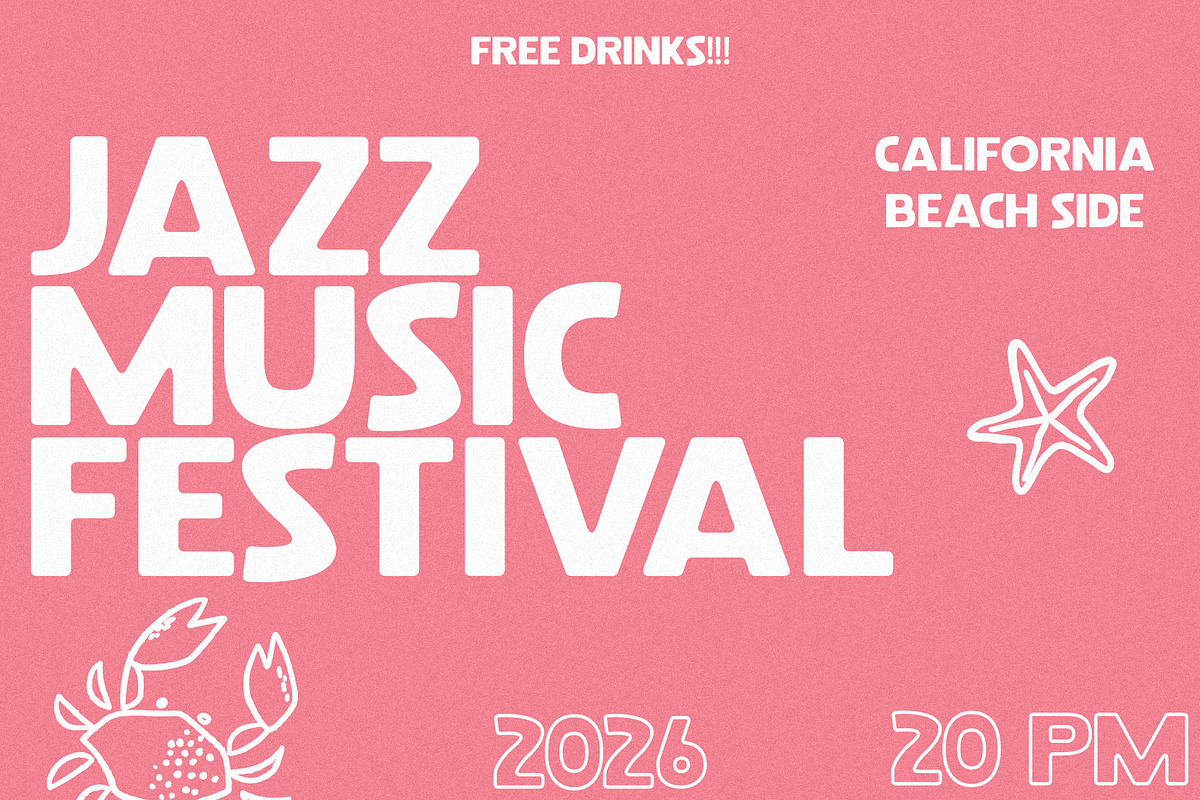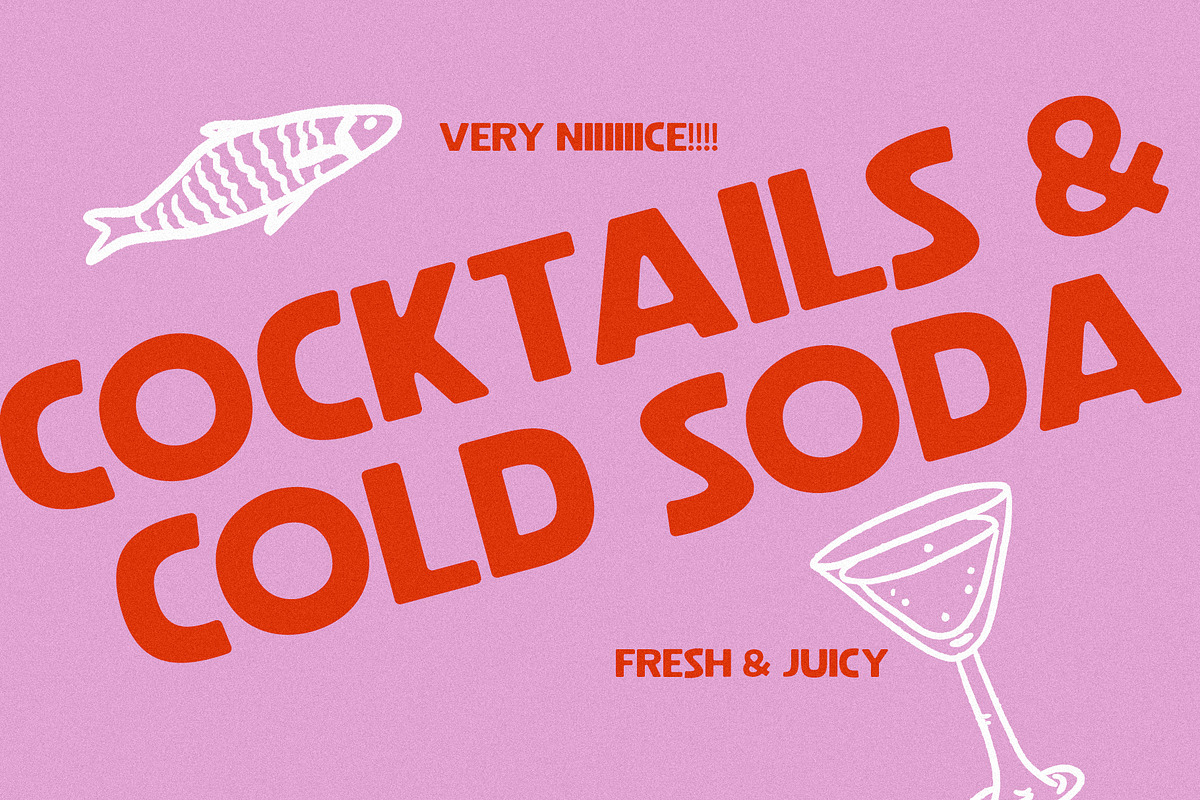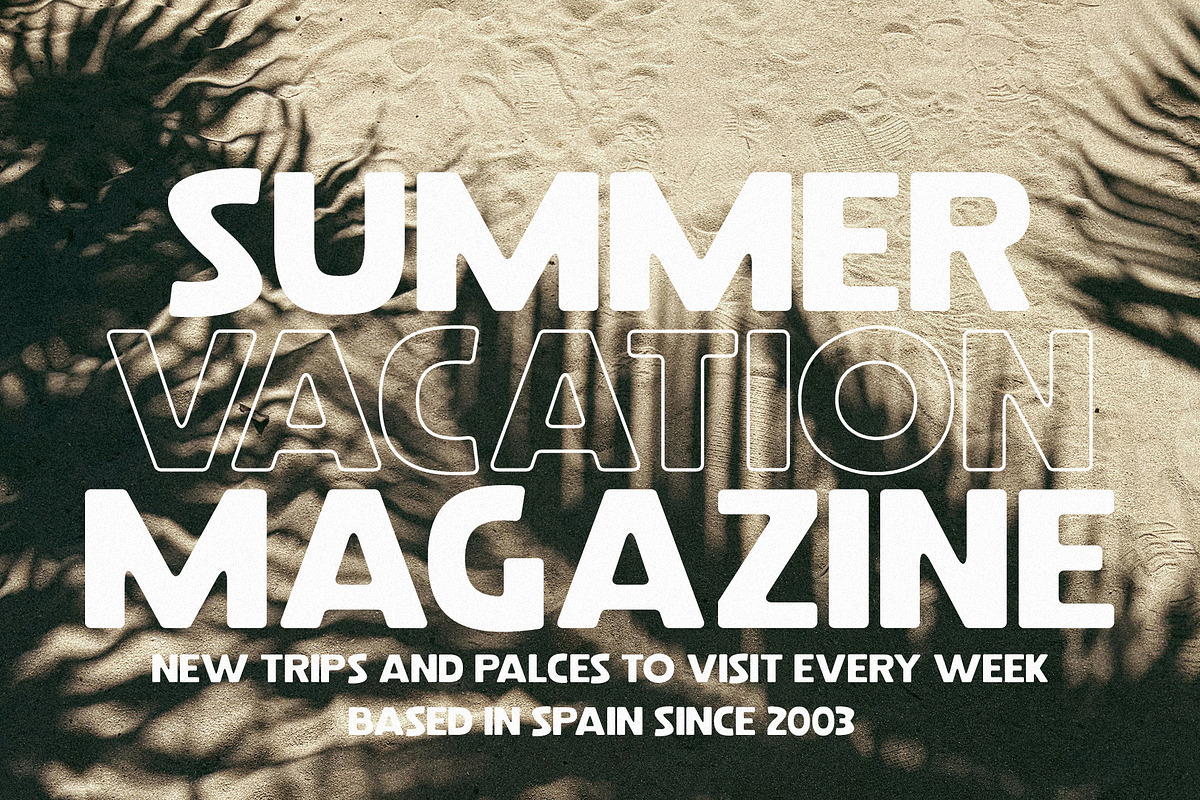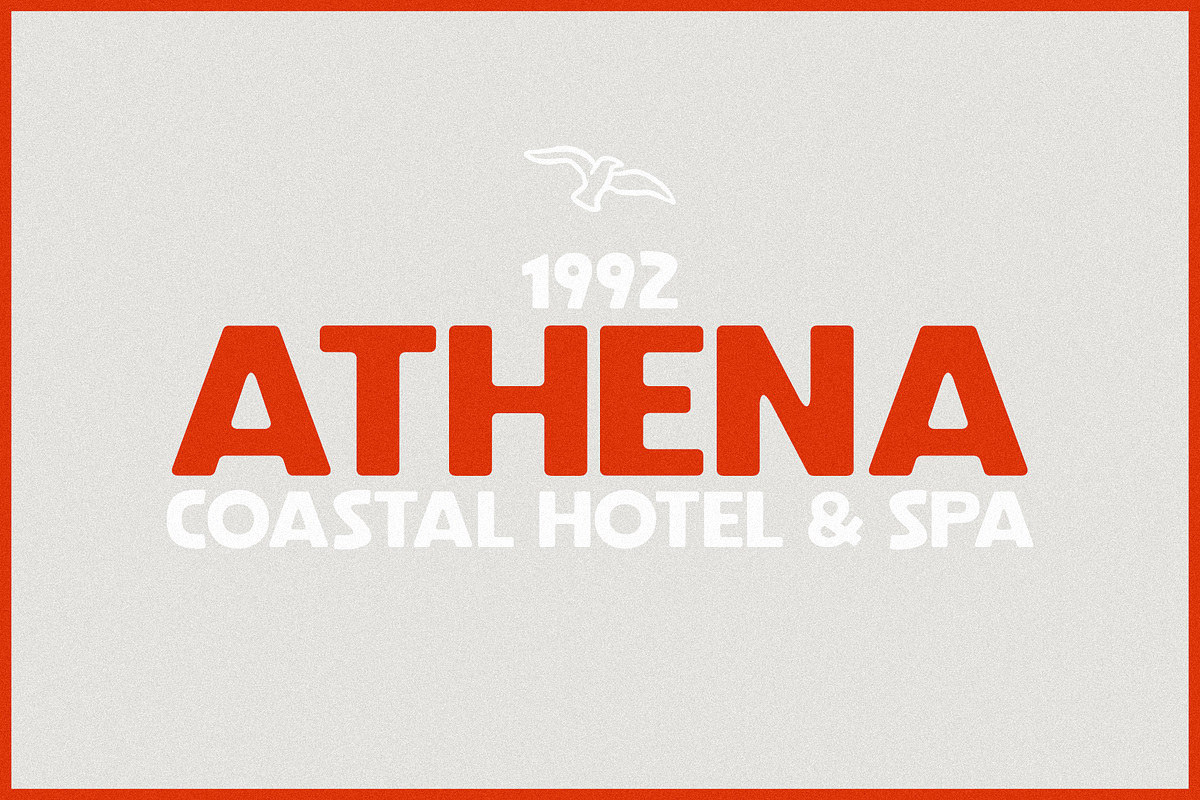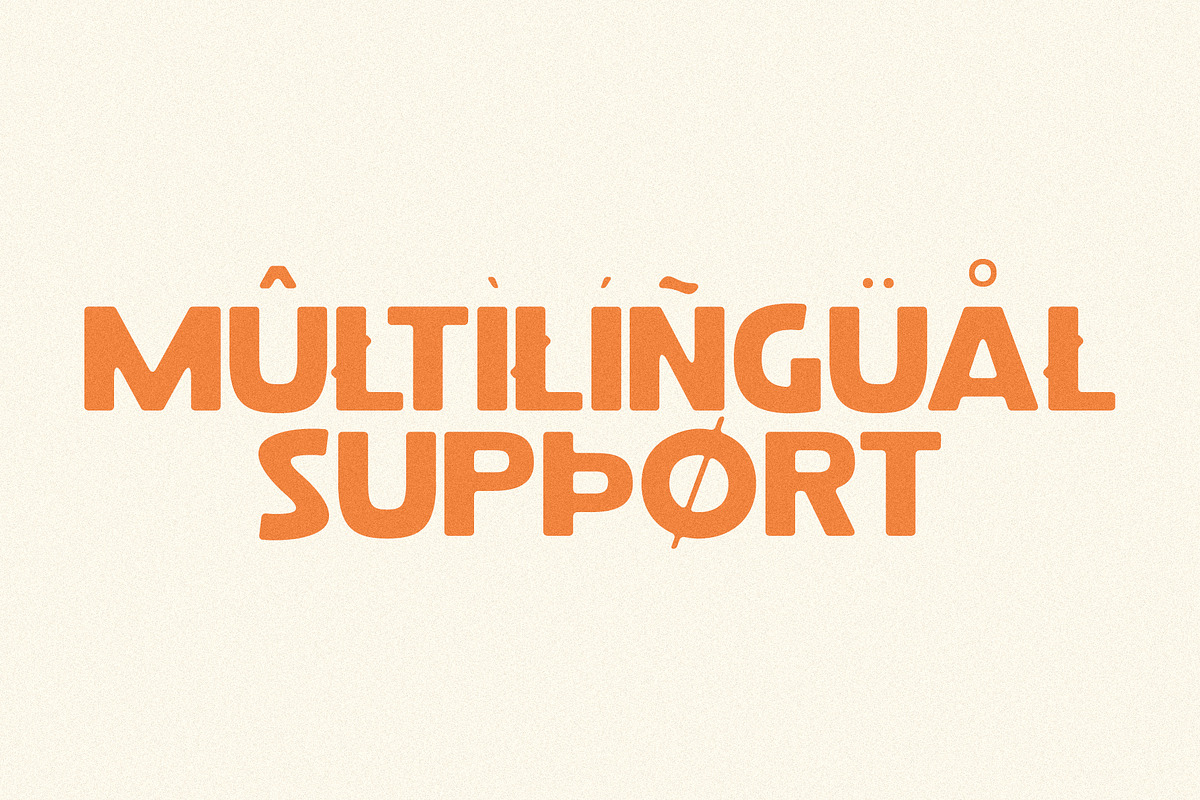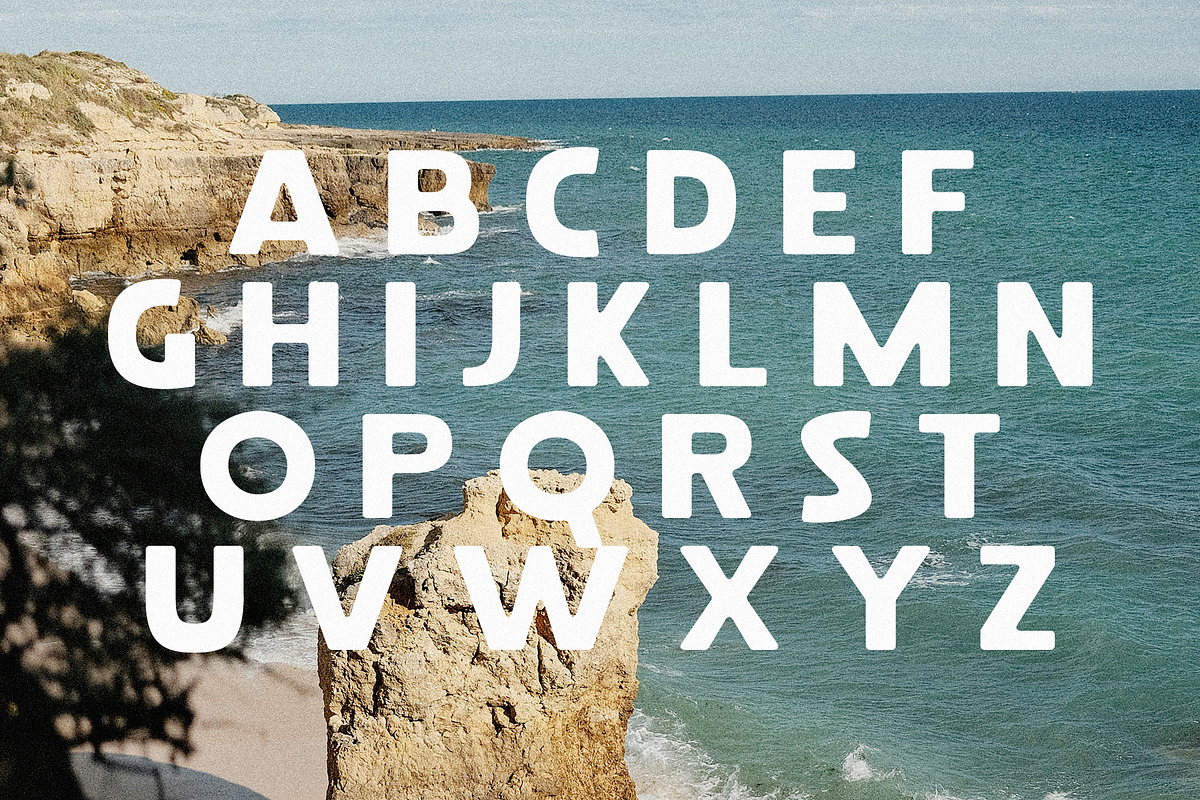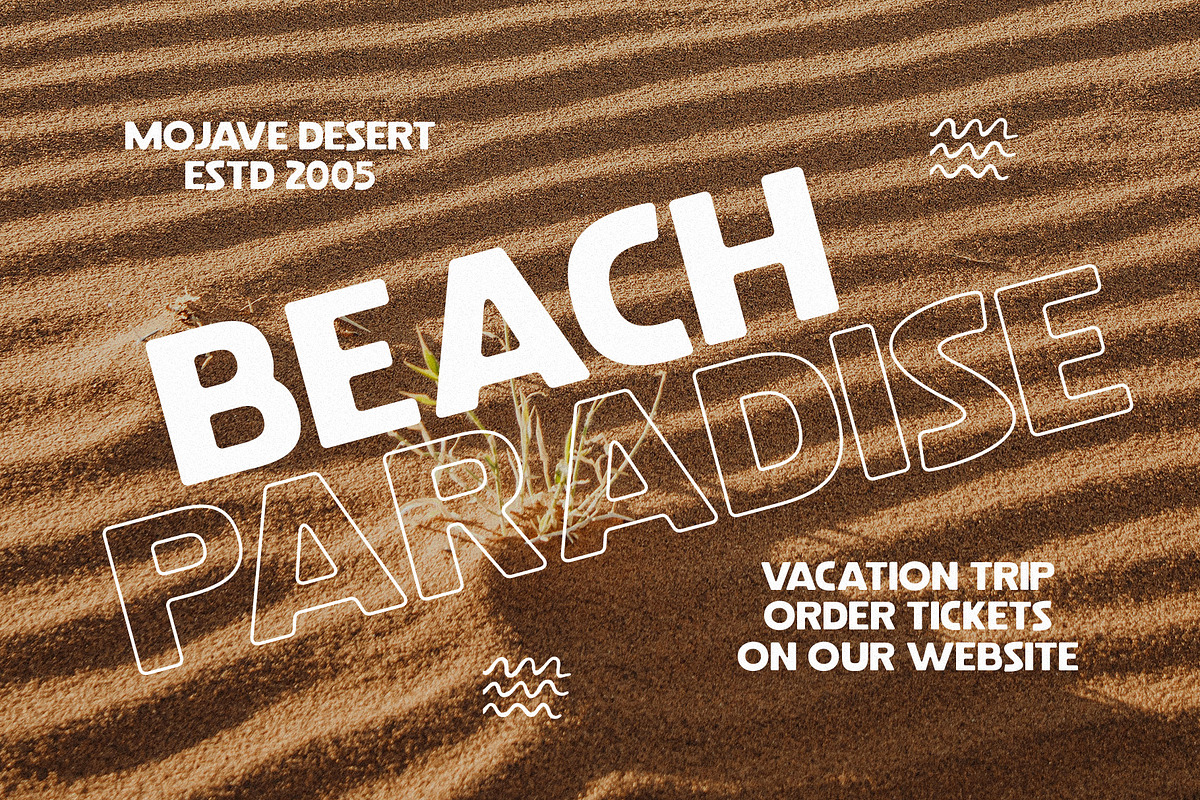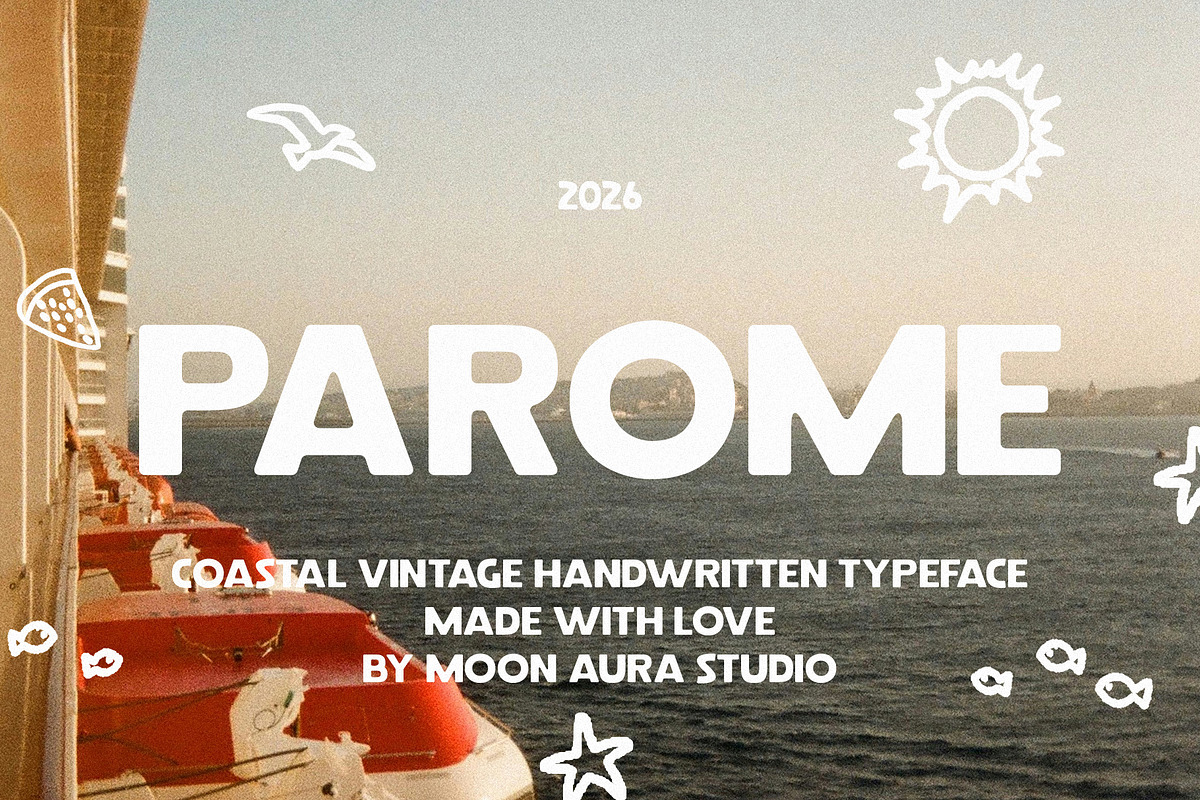
Parome - Vintage Summer Sans Serif
Parome is a vintage summer sans serif font that blends retro charm with clean modern simplicity. Its smooth curves, balanced letterforms, and relaxed seasonal character make it ideal for branding, logos, packaging, posters, social media content, and lifestyle designs. Designed to bring warmth, personality, and timeless appeal to any project, Parome delivers a fresh yet nostalgic aesthetic that stands out across both print and digital applications.